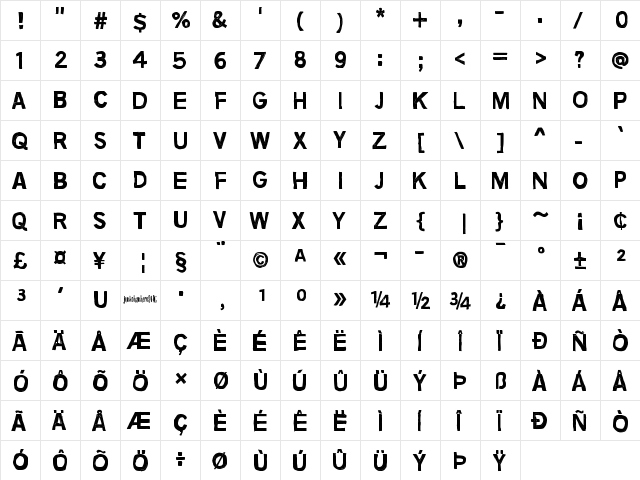
No more lies Regular
| Foundry | junkohanhero |
| Designer | junkohanhero |
Design Context for No more lies Typeface
No more lies takes a measured approach to typography — its balanced proportions and neutral character make it a reliable workhorse for both digital and print work.